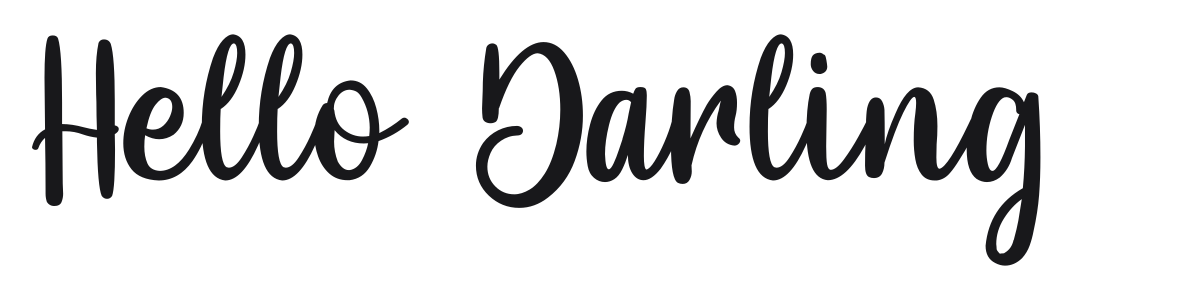
Hello Darling
by MJB Letters · Website
Hello Darling is a flowing casual script with a natural hand-lettered warmth and gently bouncy baseline. Smooth ink-like stroke transitions and looping ascenders give it an effortless, personal quality. It reads as both romantic and accessible, at home on wedding invitations, product packaging, and lifestyle branding.